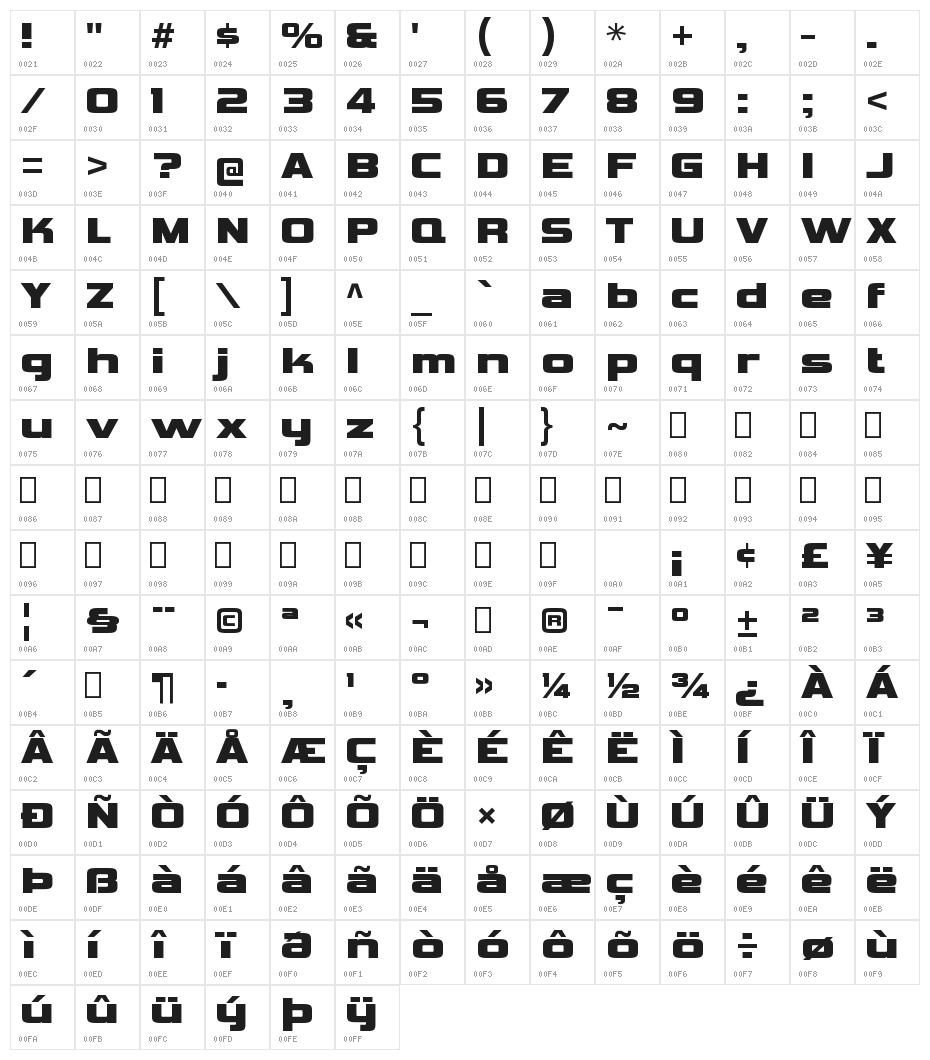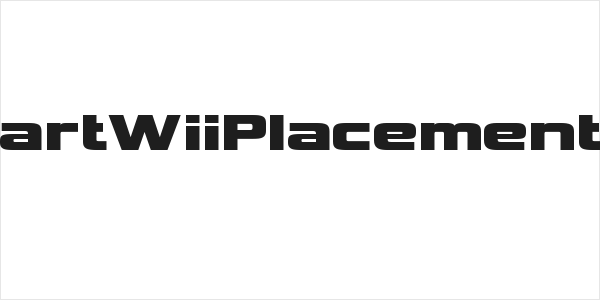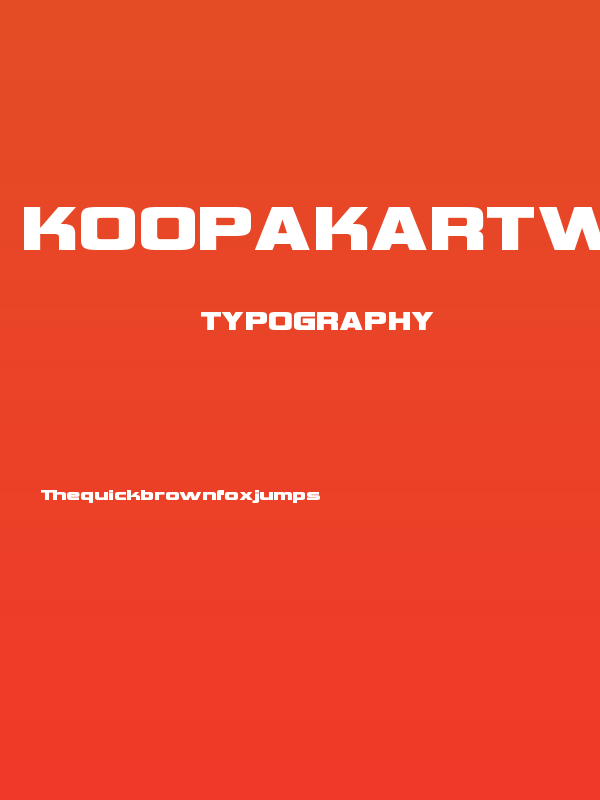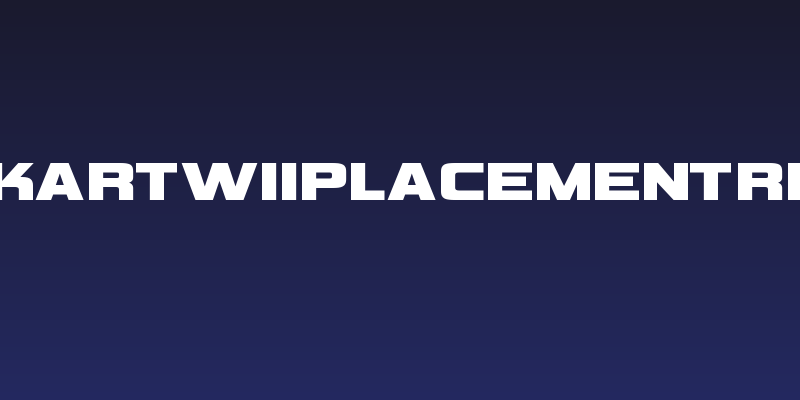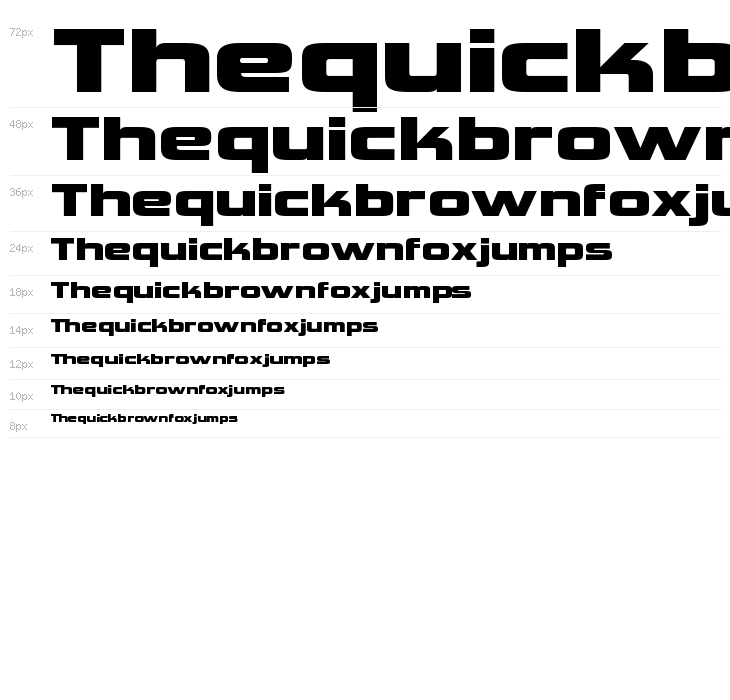
Koopa Kart Wii Placement Regular Font
Koopa Kart Wii Placement Regular Description
This font features a bold and modern design with strong geometric shapes and a clean, structured appearance. The uppercase and lowercase letters maintain a consistent weight, providing a uniform look across all characters. The numbers and special characters are designed to complement the alphabet, ensuring readability and visual appeal. The font's style is characterized by its wide letterforms and minimal contrast between thick and thin strokes, making it suitable for impactful and attention-grabbing designs.
Proposed ProjectsIdeal for video game titles, posters, branding, and advertising where a strong, modern aesthetic is desired.